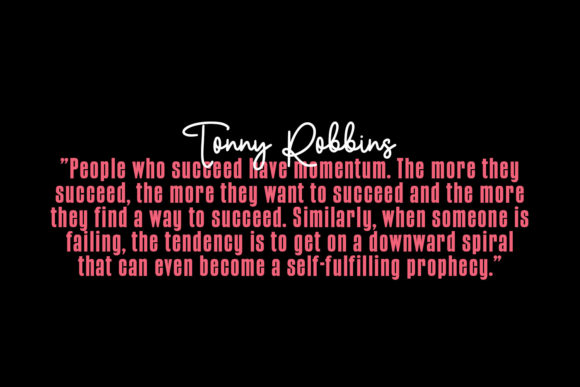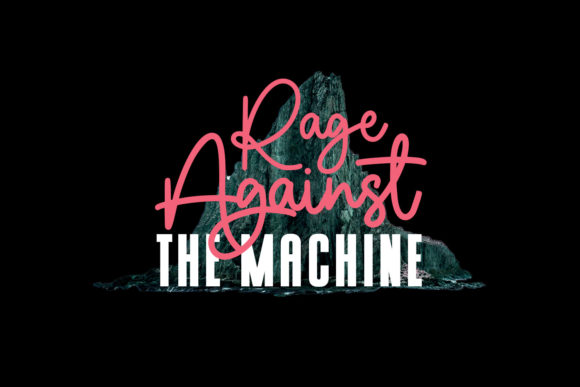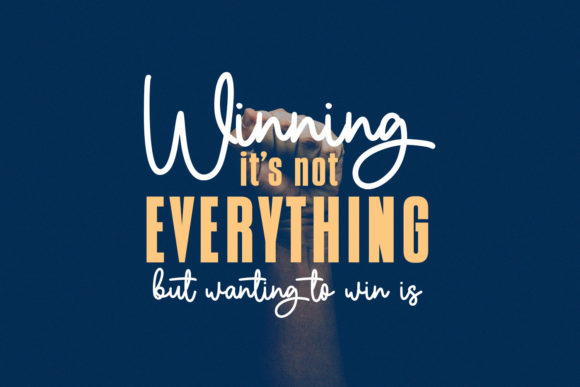
Fujinstall Font Duo Font
About the Fujinstall Font Duo Font
Discover the charm of Fujinstall Font Duo Font. This font is a perfect blend of modern aesthetics and classic appeal. Fujinstall Font Duo is a cool and versatile duo font (sans serif and script). Fall for its ravishing style and use it to create gorgeous wedding invitations, beautiful stationary art, eye-catching social media posts, and much more!
Fujinstall’s sans-serif works best for headlines, short text blocks, and branding elements where a modern, clean feel is desired. The script is ideal for logos, watermarks, and short, impactful phrases within wedding invitations or other elegant stationery. Avoid using the script for large amounts of body text; its decorative nature makes it less legible in extended passages. The sans-serif, while versatile, isn’t ideal for UI elements requiring high readability at small sizes.
Its personality is sophisticated yet approachable; modern with a touch of classic elegance. It’s well-suited for brands targeting a stylish, discerning audience—think high-end fashion, boutique hotels, or premium food products.
Consider pairing the sans-serif with a classic serif like Garamond for a balanced contrast or a geometric sans-serif like Futura for a consistently modern aesthetic. For a more playful feel, combine the script with a light, rounded sans-serif.
Fujinstall Font Duo Font Usage Examples
Fujinstall Font Duo Font Example